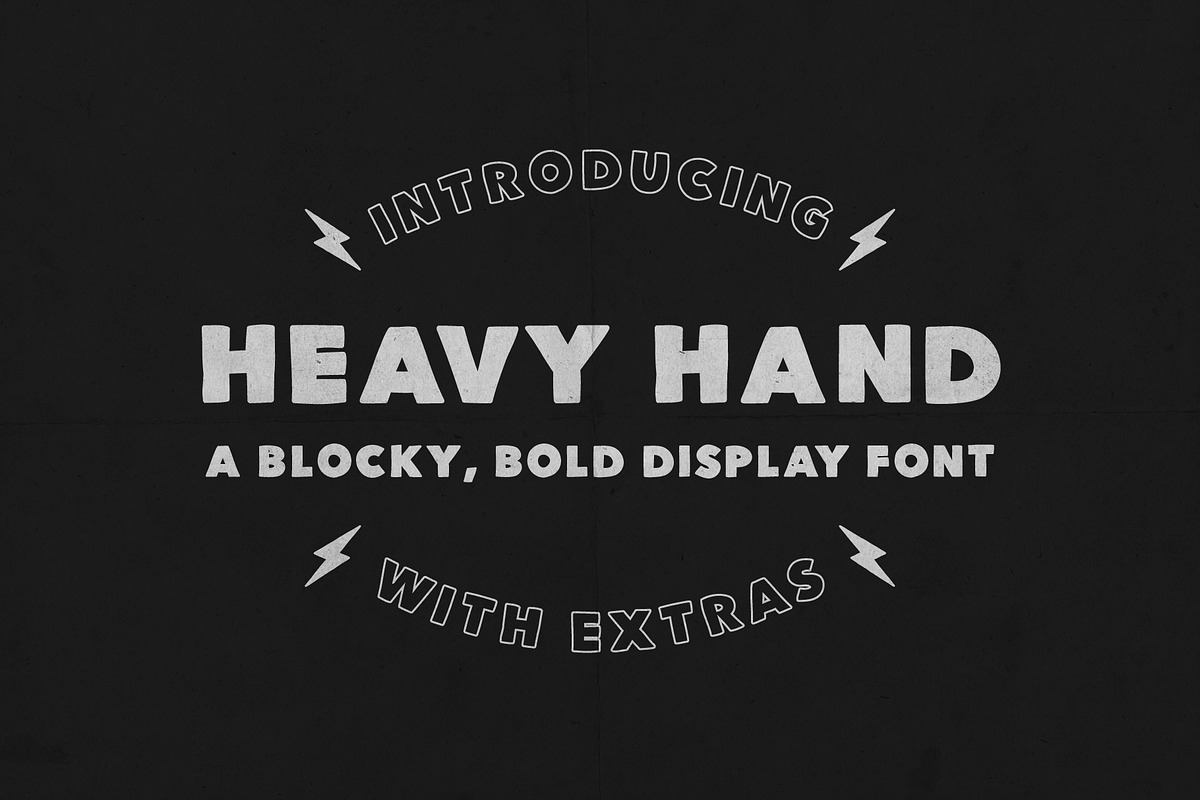
Heavy Hand - a Bold Font with Extras Free Download is a striking, powerful typeface designed to make a bold statement. Featuring thick, heavy letterforms, this font is perfect for headlines, posters, logos, and any design that needs to grab attention. In addition to its strong letters, this font comes with extra elements, making it even more versatile for creative projects.